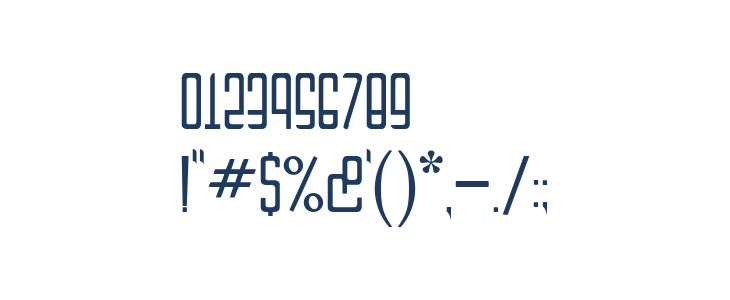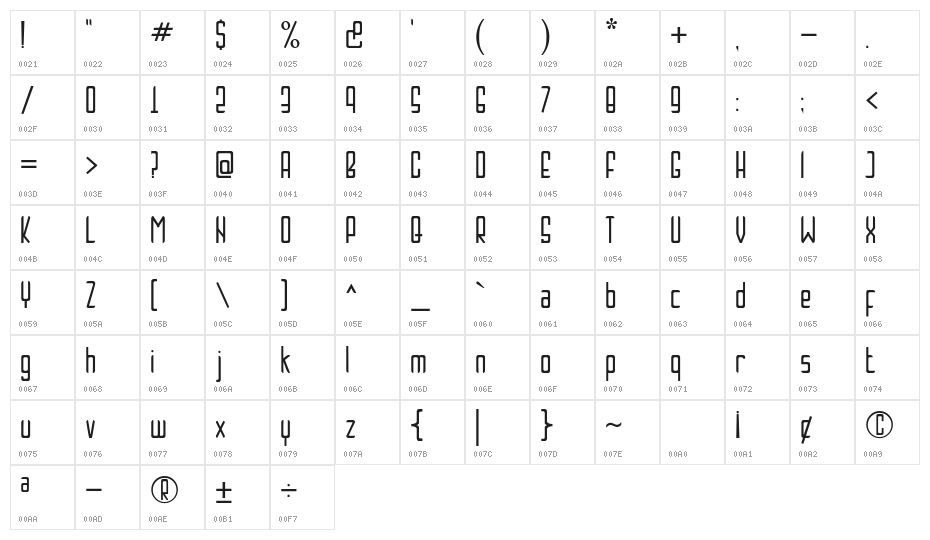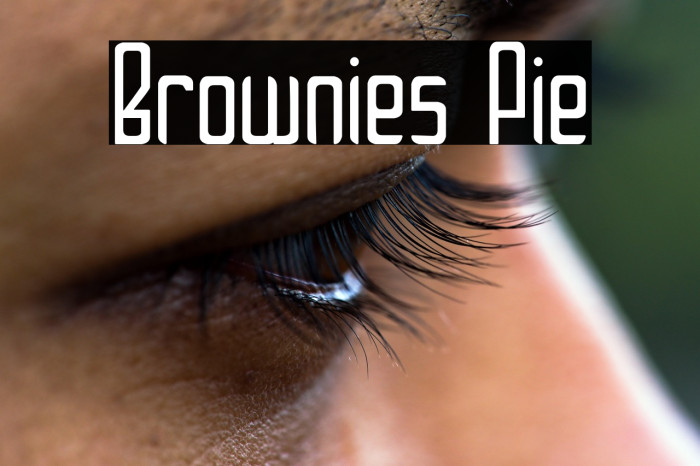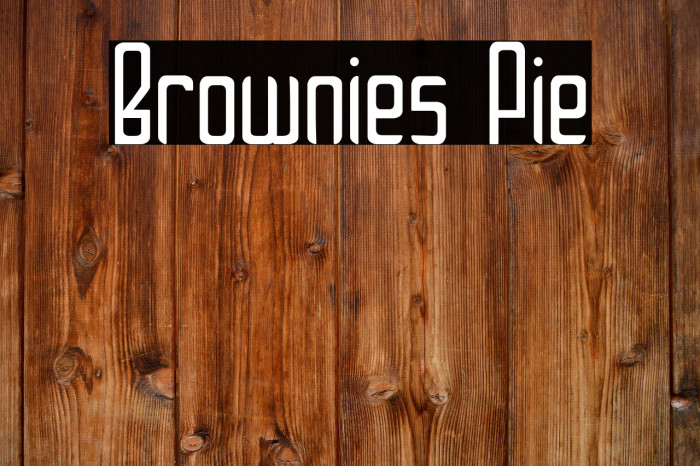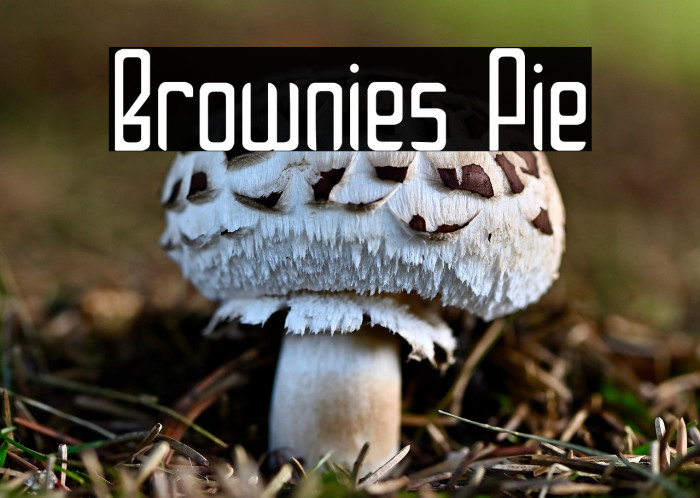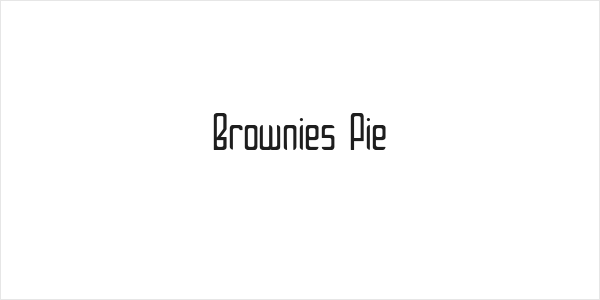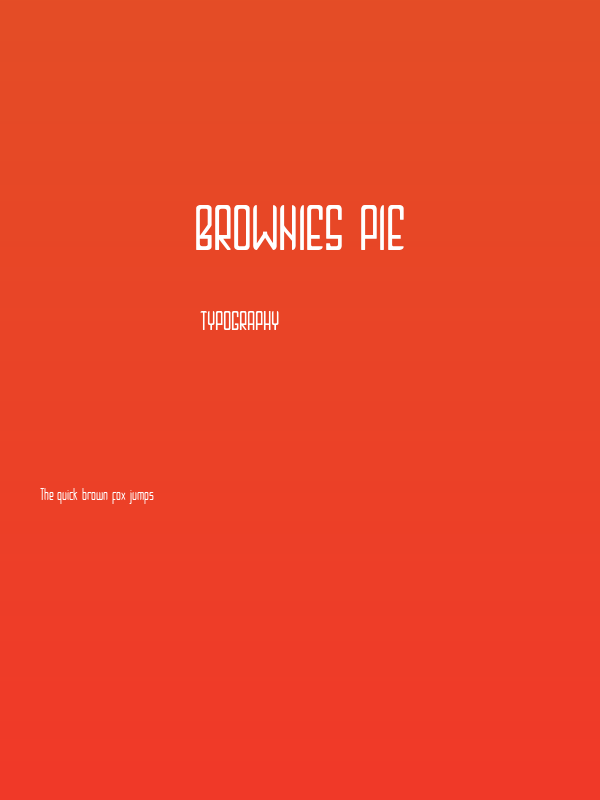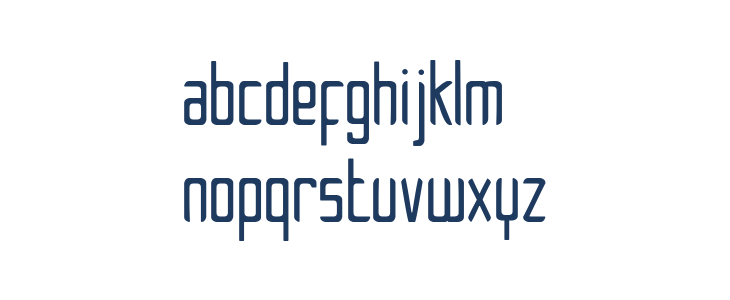
Brownies Pie Font
Brownies Pie Description
This font features a modern and geometric design with a distinctively rounded and elongated structure. The uppercase letters are tall and narrow, while the lowercase letters maintain a consistent height, creating a harmonious balance. The numerals are clear and easy to read, matching the overall style of the alphabet. Special characters are uniquely styled, maintaining the geometric theme. The font's clean lines and uniform stroke width give it a sleek and contemporary appearance, making it suitable for a variety of design applications.
| Proposed Projects | Ideal for branding, advertising, packaging, and digital media projects that require a modern and clean aesthetic. |